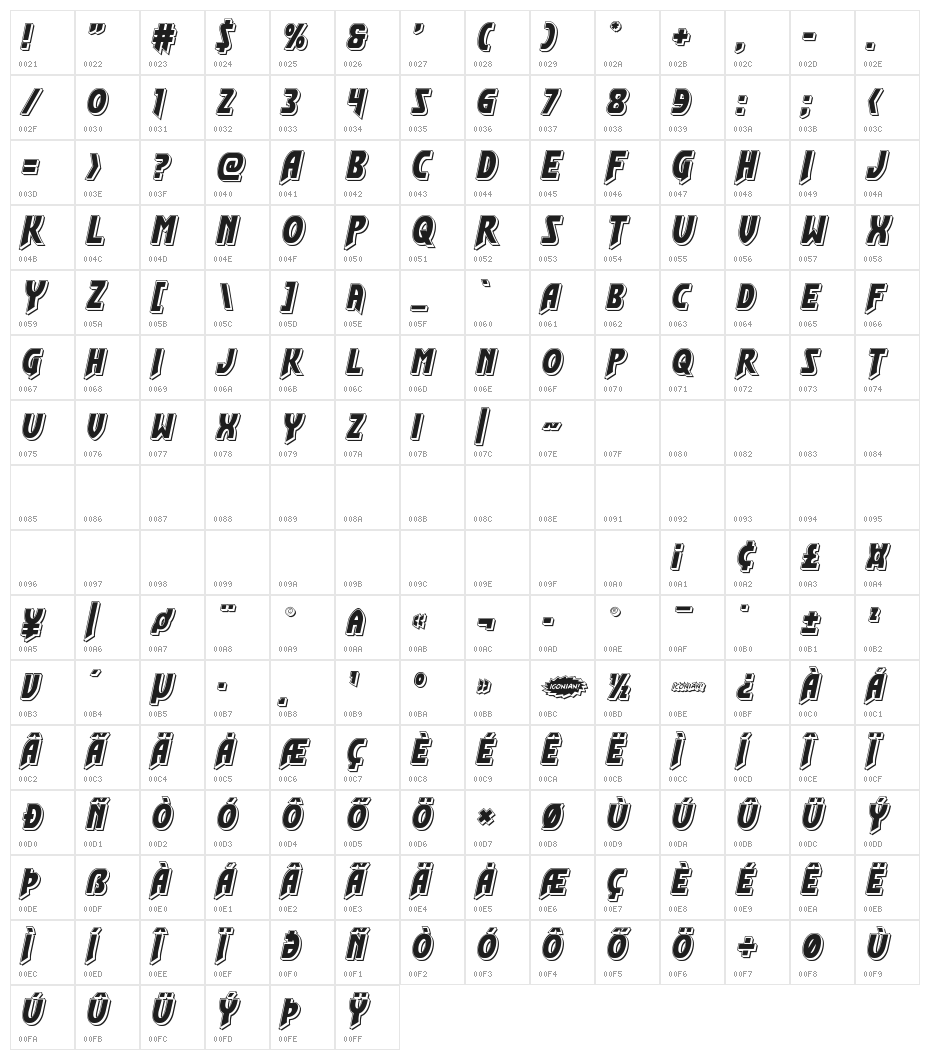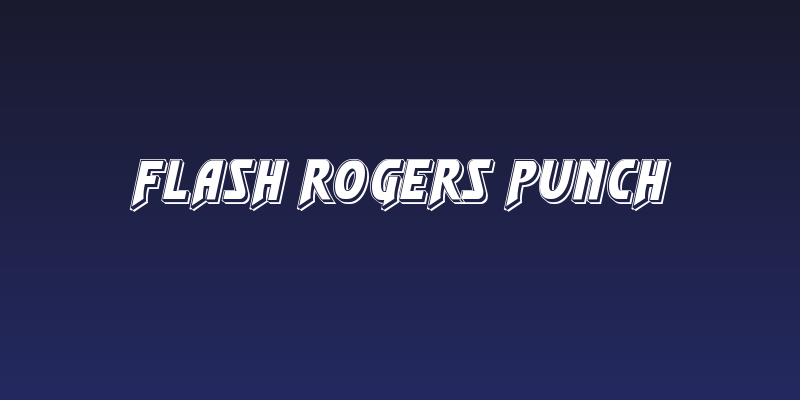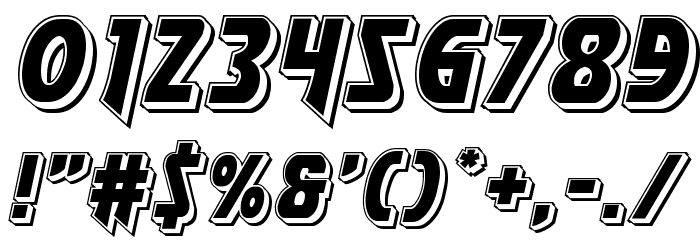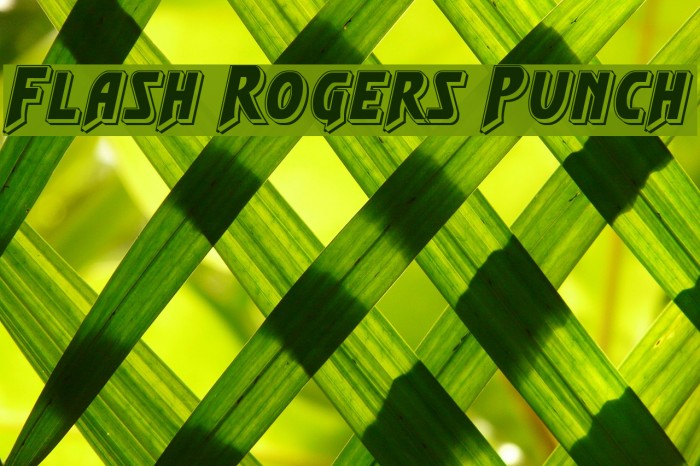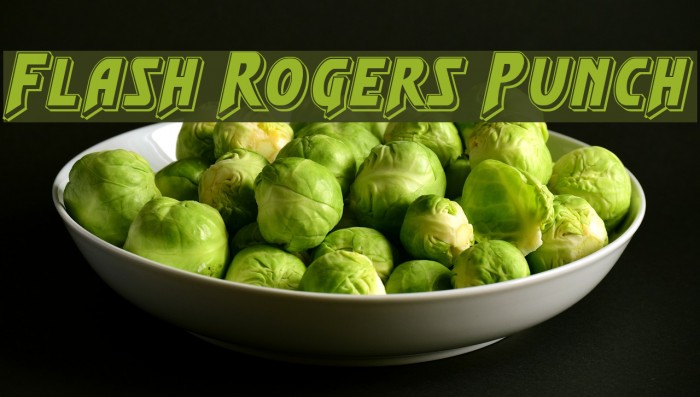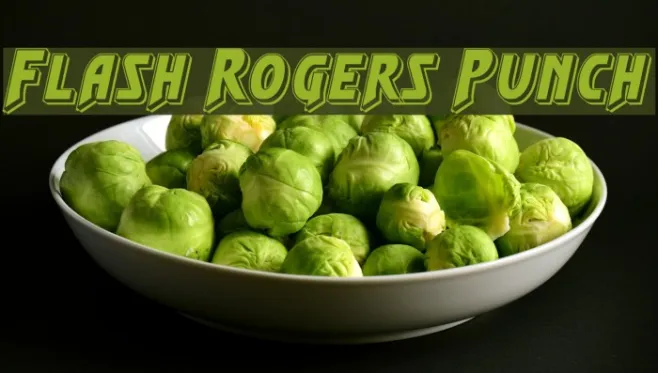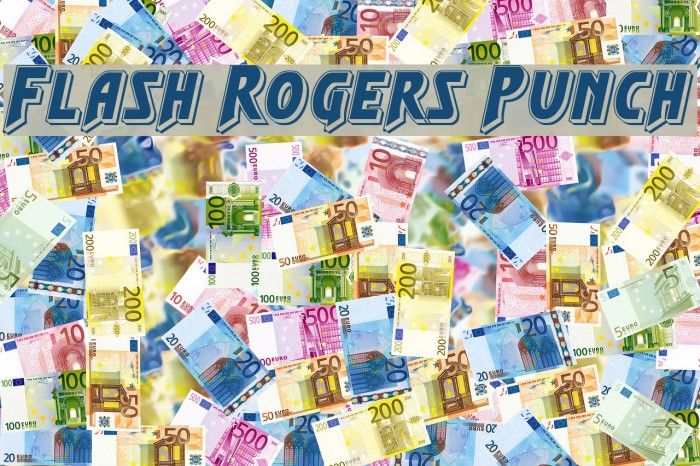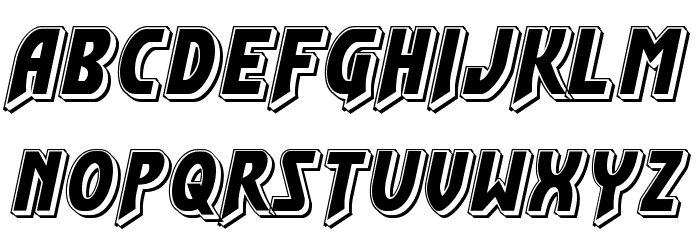
Flash Rogers Punch Font
Flash Rogers Punch Description
This font features a bold, dynamic style with a strong 3D effect, making it stand out with its shadowed, blocky appearance. The uppercase letters are particularly striking, with sharp angles and a sense of movement that suggests speed and power. The numbers and special characters maintain this energetic style, ensuring consistency across all glyphs. The font's design is reminiscent of comic book titles or action-packed themes, with a playful yet assertive presence.
| Proposed Projects | Ideal for comic book titles, action-themed posters, video game graphics, and any project needing a bold, energetic typeface. |